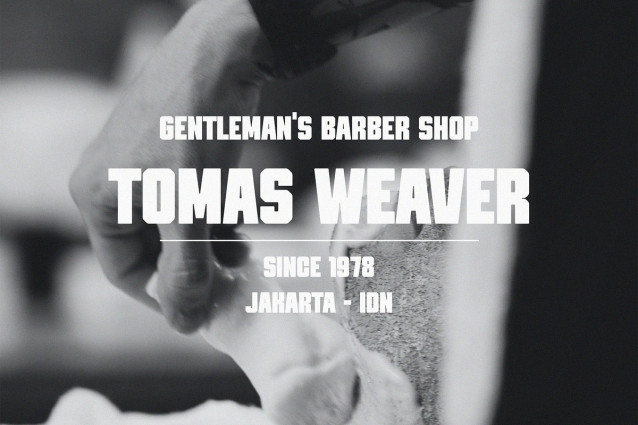
Warnok Font
Warnok Font – Masculine Sans Serif, is a modern and simple font, best used as a display for headings, logos, branding, magazines, product packaging and invitations.